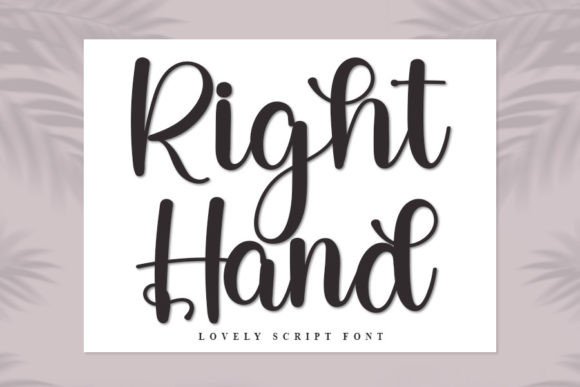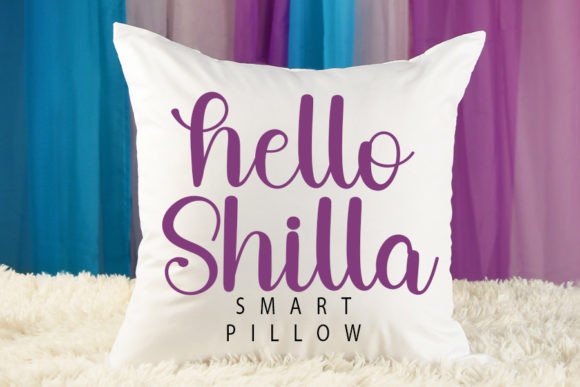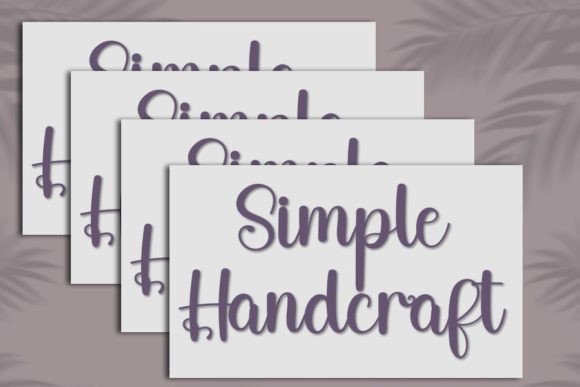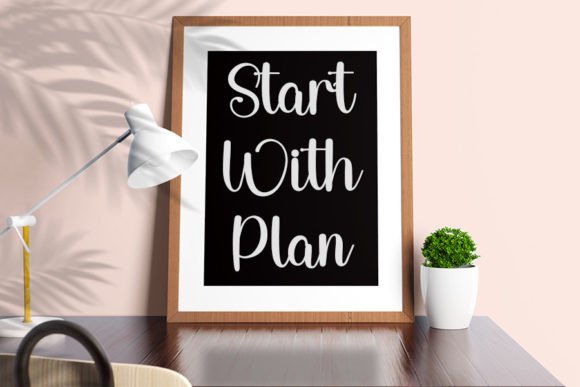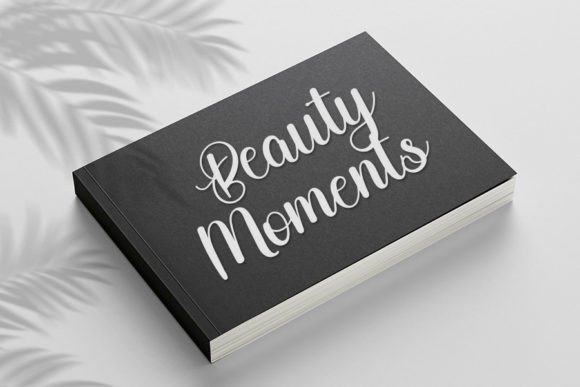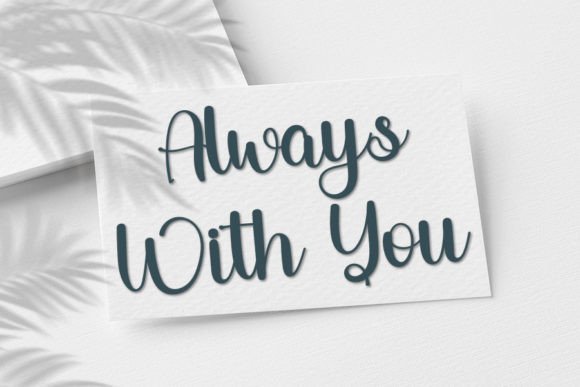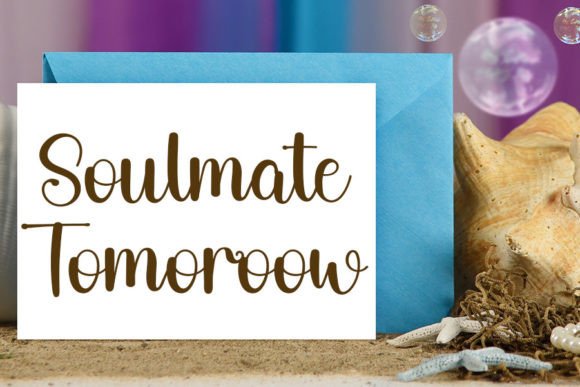
Right Hand Font
About Right Hand Font
Introducing Right Hand, a beautiful and refined handwritten font that exudes class and modernity. This font is perfect for a wide range of applications, including logos, branding, invitations, stationery, wedding designs, social media posts, and much more. Right Hand is not just a font; it’s a sophisticated tool designed to elevate your creative projects.
The classy and modern aesthetic of Right Hand makes it versatile for various design contexts. Whether you’re crafting a logo for a high-end brand, creating elegant invitations, or designing social media posts that demand a touch of refinement, Right Hand delivers.
The font’s PUA encoding feature enhances its accessibility, allowing you to access a plethora of amazing glyphs and ligatures with ease. This ensures that Right Hand offers you creative freedom, enabling you to customize your designs with unique and stylish elements.
Imagine Right Hand enhancing your stationery with its refined handwritten charm or adding a classy touch to your wedding designs. Picture it gracing your brand’s logo, creating a visual identity that exudes sophistication and modernity.